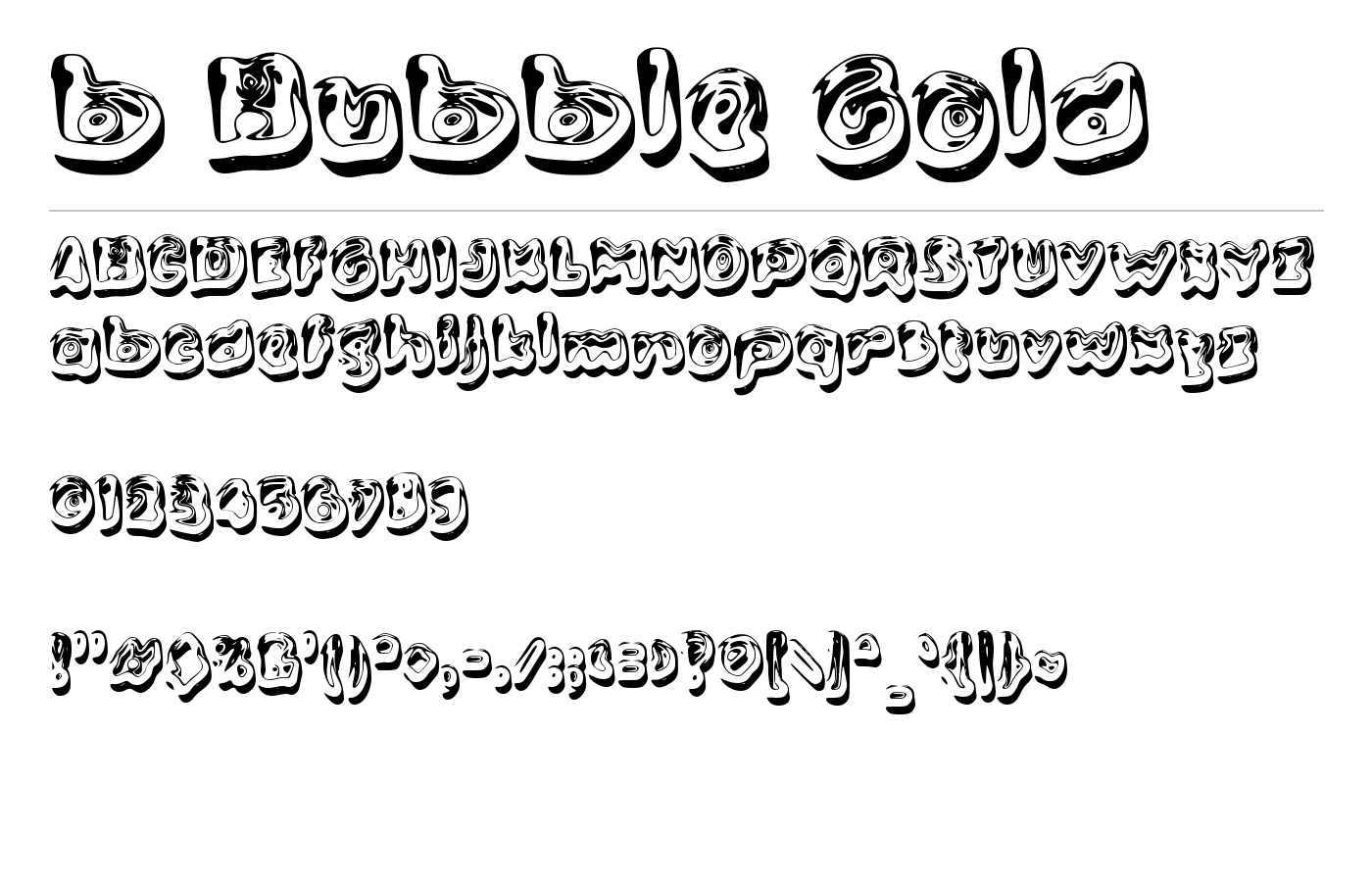
b Bubble Gold is a bold, playful display font characterized by its bubbly, irregular shapes and high-contrast black and white swirl patterns that create a dynamic, almost liquid effect. Its quirky and hand-crafted feel makes it ideal for eye-catching logos, posters, and creative branding that seek a fun, energetic, and unconventional vibe. This font works best in large sizes where its unique, artistic details can be fully appreciated.
b Bubble Gold Font
About b Bubble Gold Font